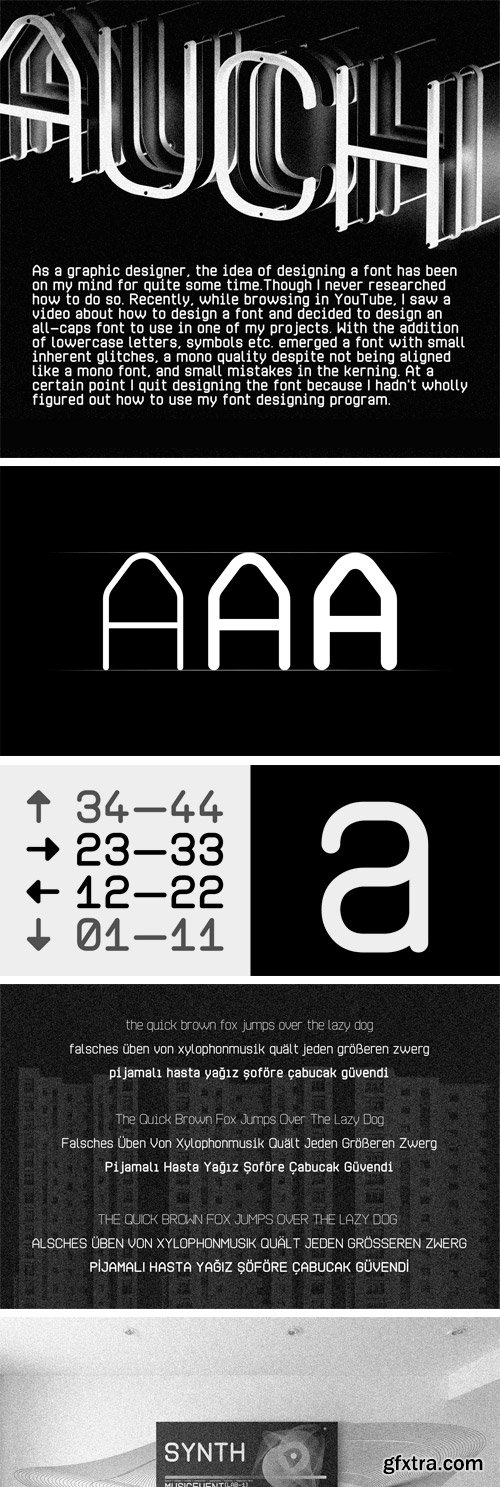
Auch Font Family
Auch is a modern and minimalist sans serif font family. It comes with 3 weights: Light, Regular and Bold, contains uppercase and lowercase letters, numbers and symbols, including multilanguage support. This typeface perfectly suits for headlines and text blocks, branding, infographics, tech design and much more.